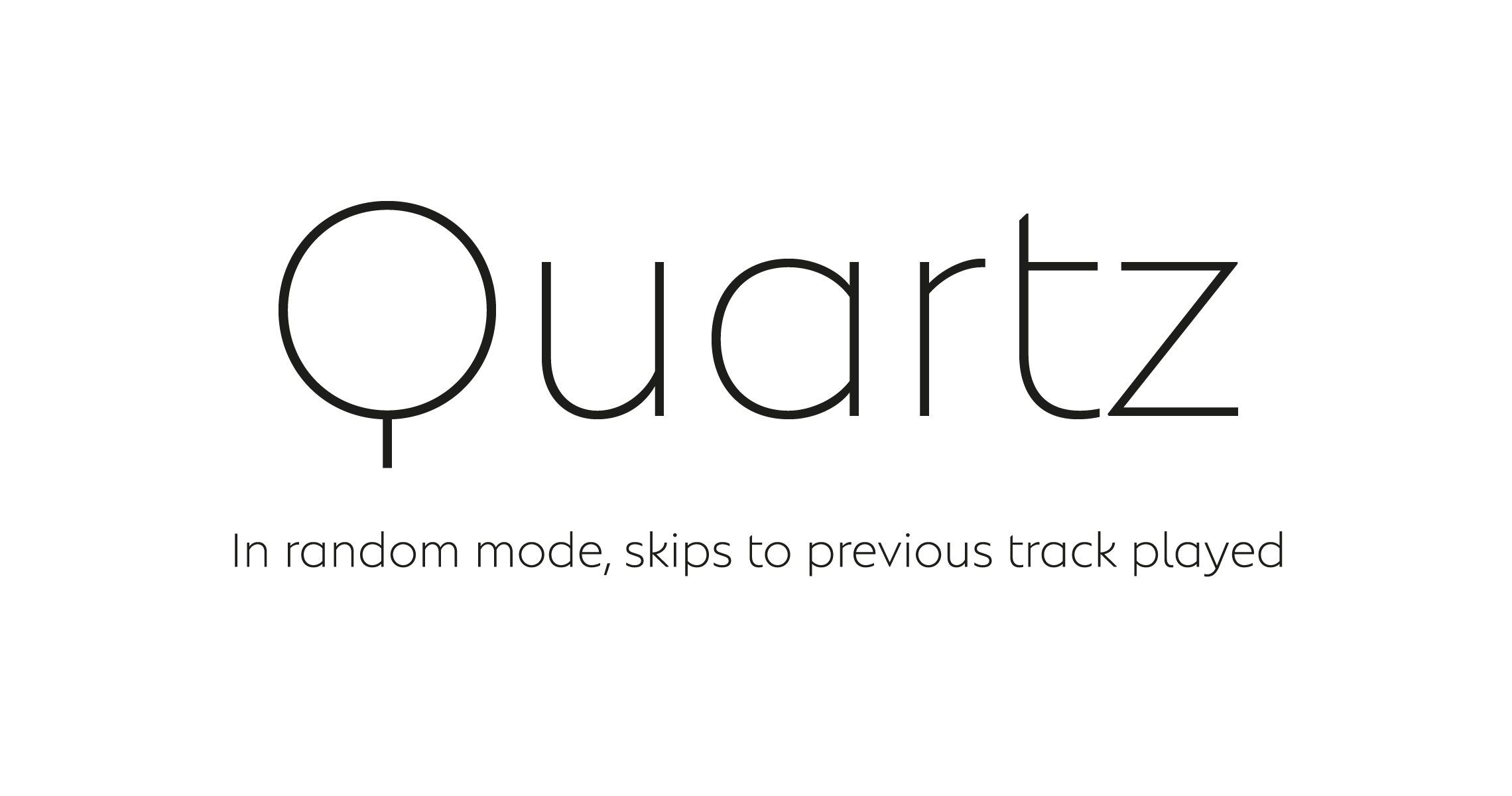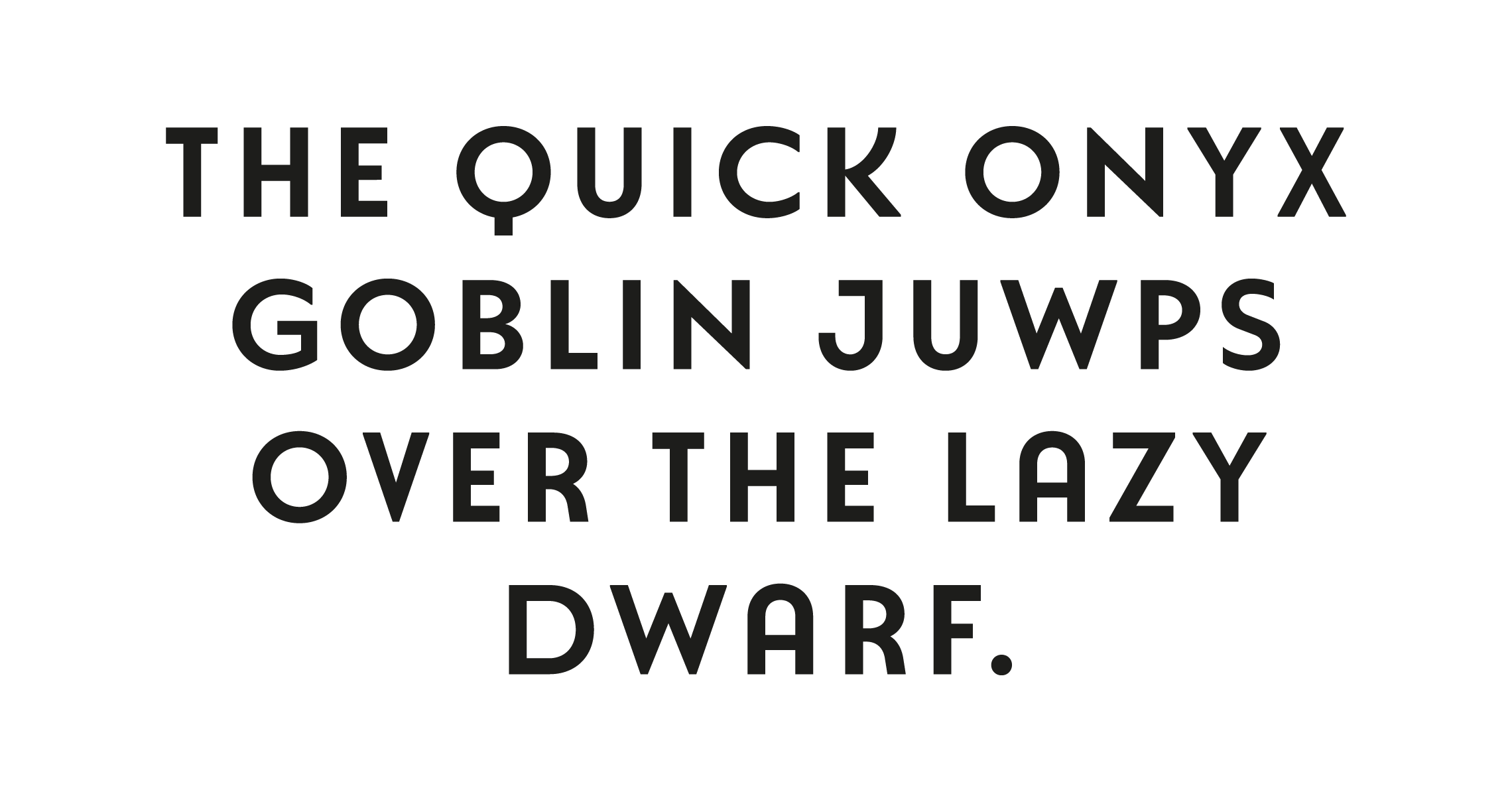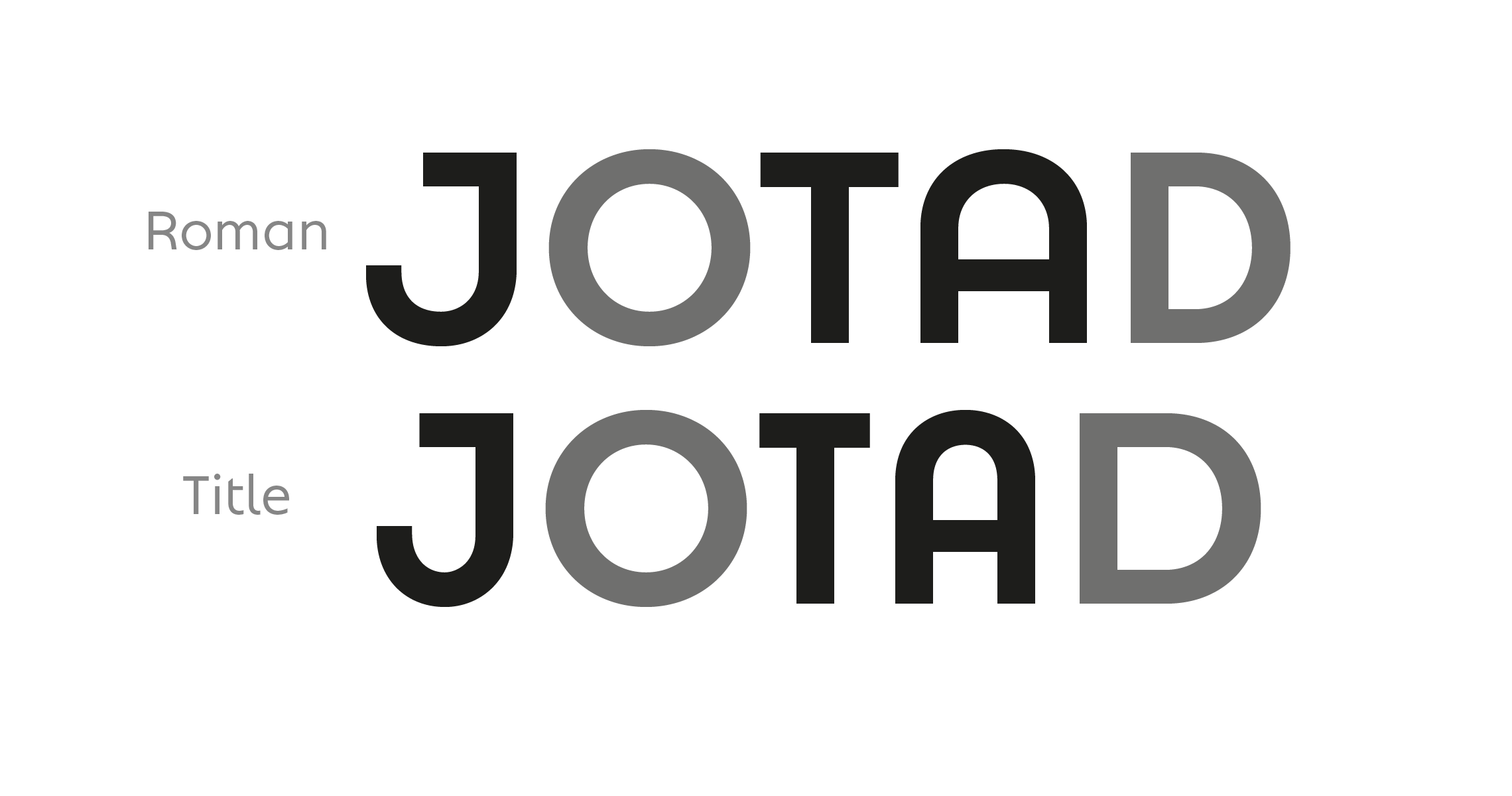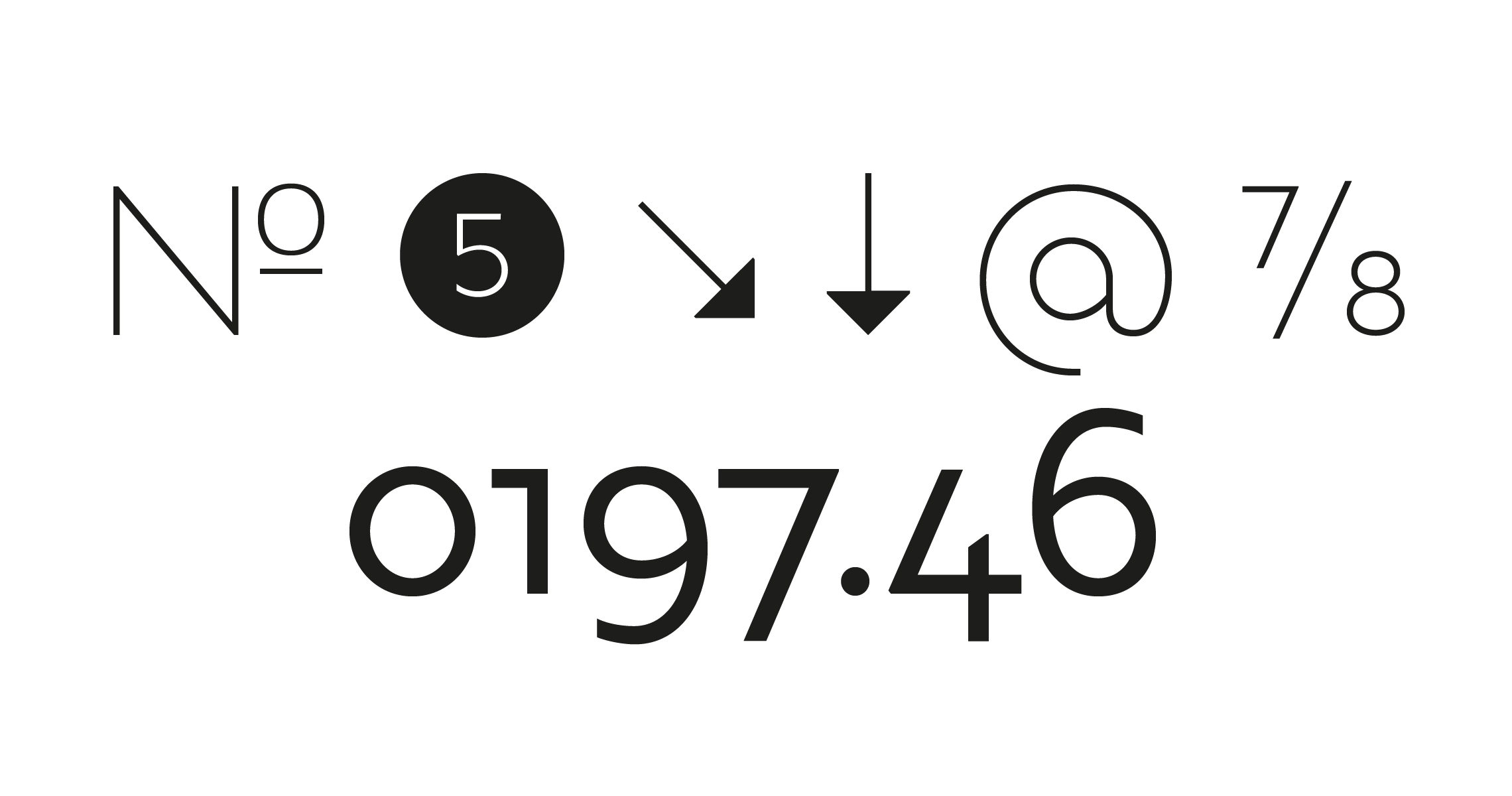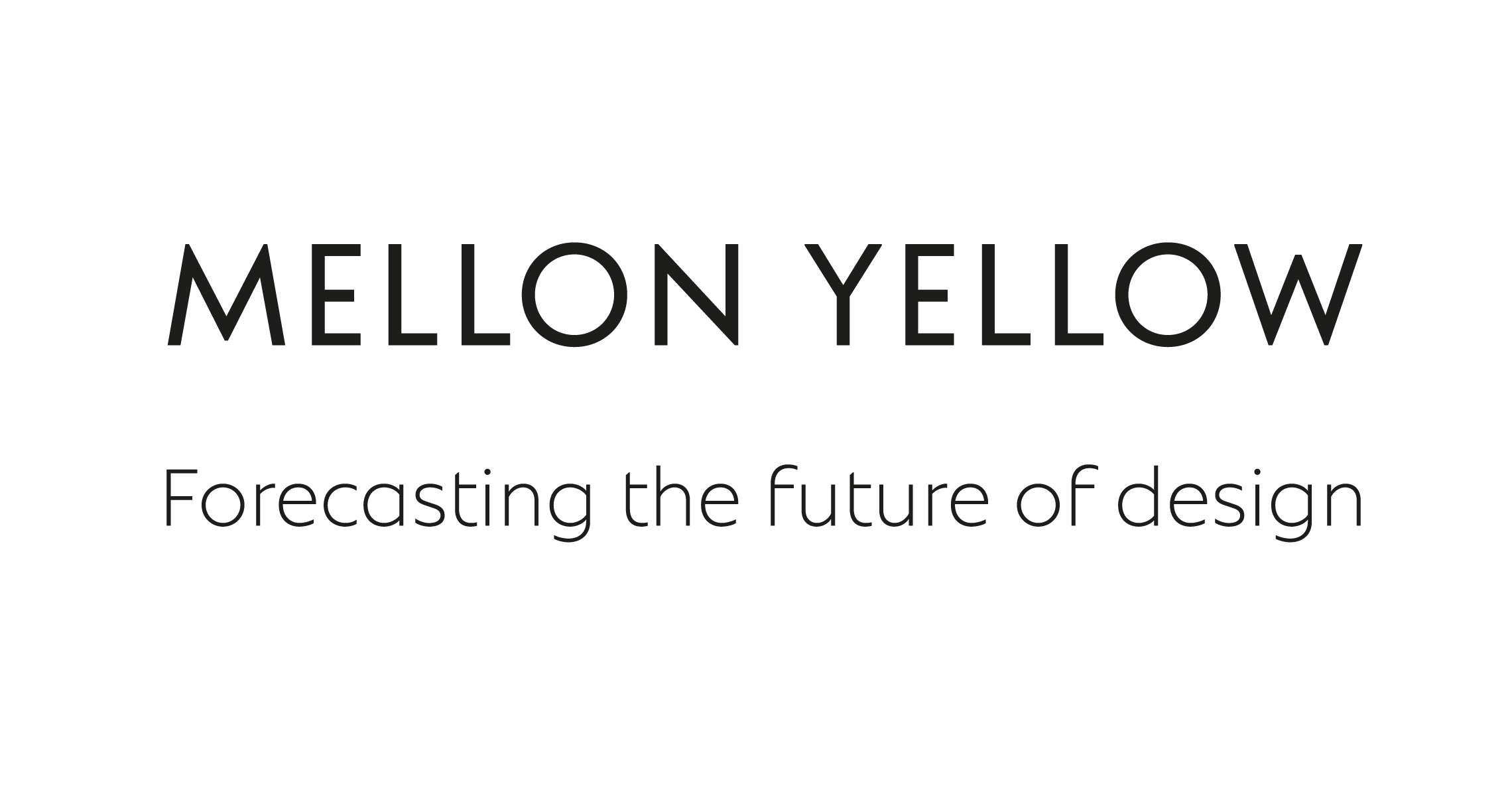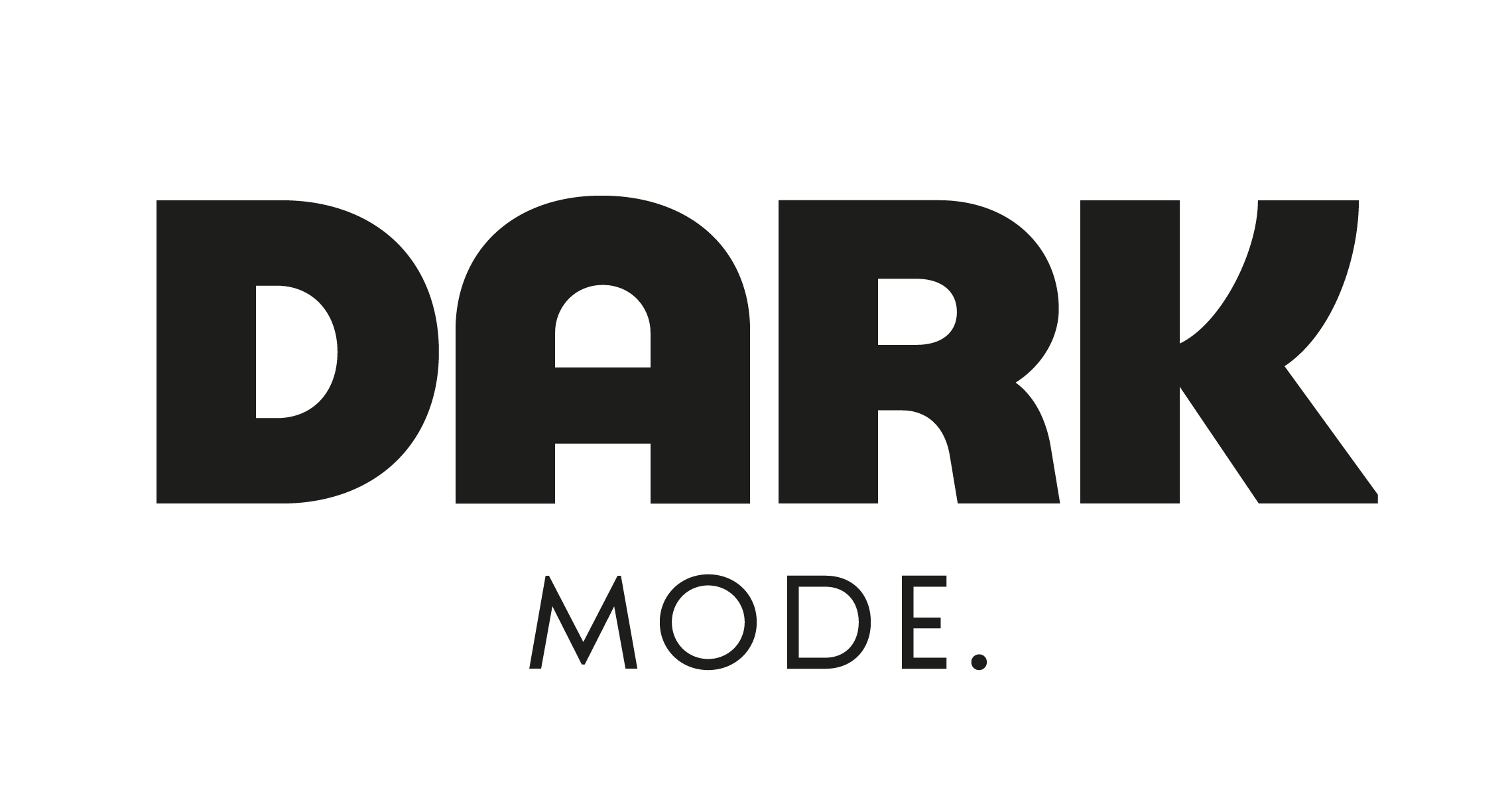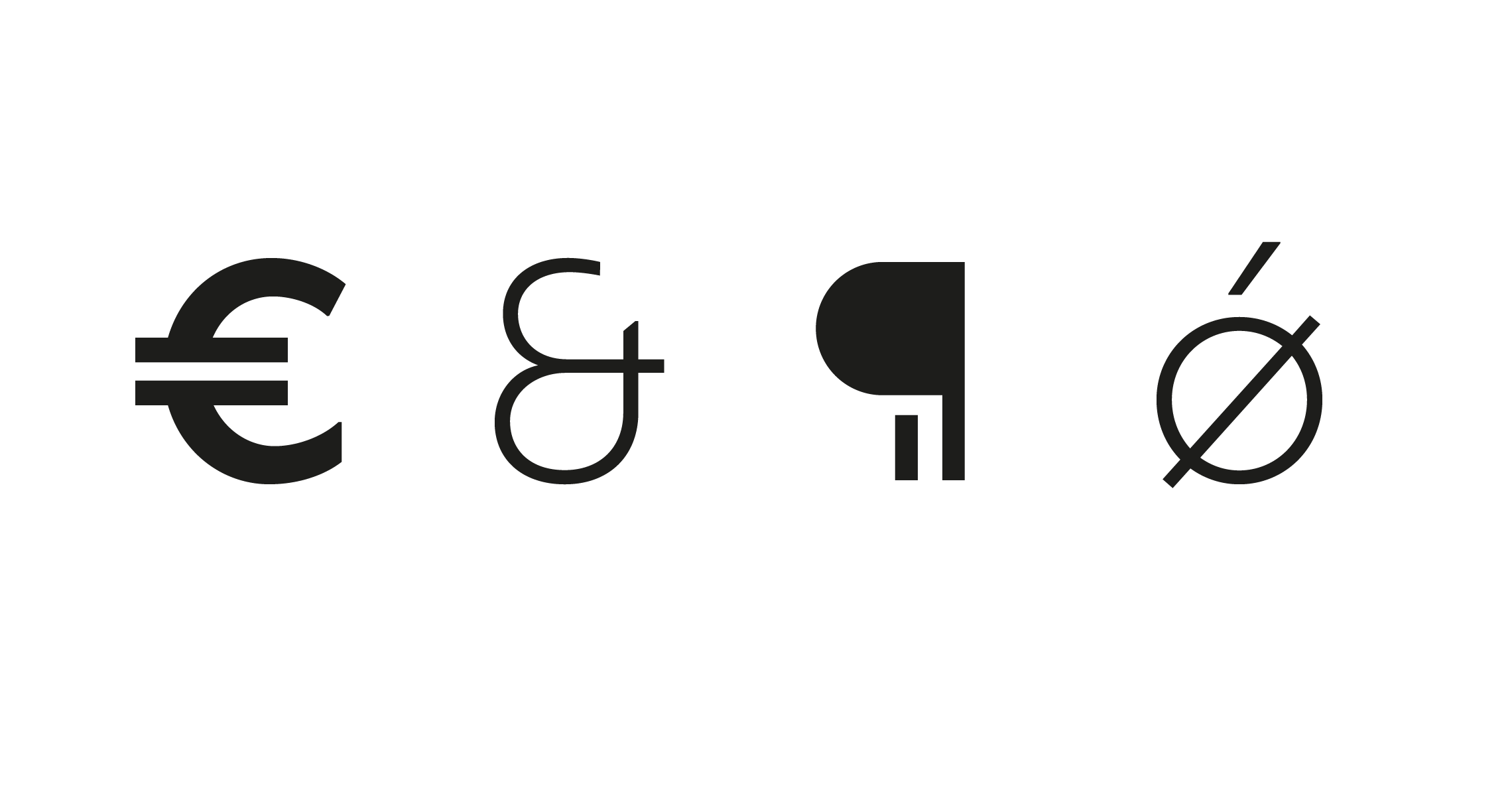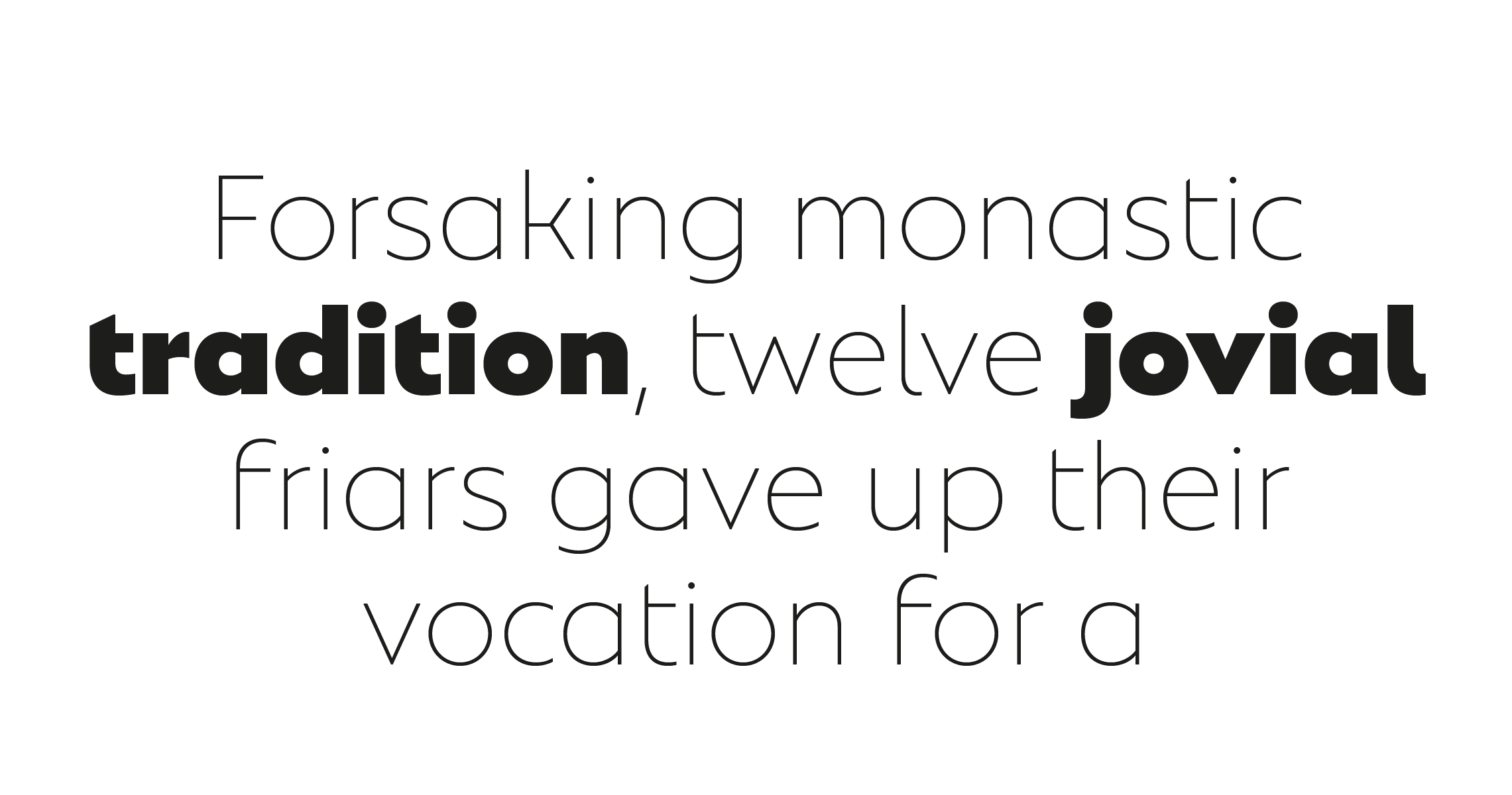
Natom Pro
A family of fonts with rhythm.
Natom Pro is a sans serif and geometric font family adapted to the professional requirements of graphic designers, web designers and mobile application developers. Comprised of 19 styles including 8 styles designed especially for the design of headlines, Natom Pro is a very versatile family of fonts that can be used in many projects such as editorial design, branding or corporate identity creation, design of posters or logos, the creation of websites or the development of mobile applications.
This font, with a resolutely contemporary aspect, also hides a unique typographic design since it has 2 distinct styles (Title and Roman) which have 2 different typographic rhythms in order to graphically differentiate the appearance of titles, subtitles and long paragraphs.
With this design of rhythmically differentiated glyphs according to the styles, the headlines have a very graphic aspect while the long texts have a more classic aspect in order to keep optimal readability in all scenarios.
Its architecture is also very modern since it was designed and drawn with particular attention to the geometry of the forms with clear and open endings cut at 90 degrees. The number of styles has also been simplified with the most used thicknesses (Extra Light, Light, Regular, Medium, Bold and Black) in order to speed up your graphic design process. For the more experienced designers, Natom Pro is also available in a variable version.
Natom Pro is also equipped with powerful OpenType features like case sensitivity, true small caps, full ligature set, tabular figures for tables, “old styles figures” to elegantly insert figures into your sentences, numbers circled or even alternative characters to satisfy the most demanding professionals. With all its specificities, Natom Pro is a “geogrotesque” style family capable of satisfying the needs of professionals who want a “typed”, elegant geometric font family with an extended character set for more than 100 Western, Eastern and Central European languages for international communication.